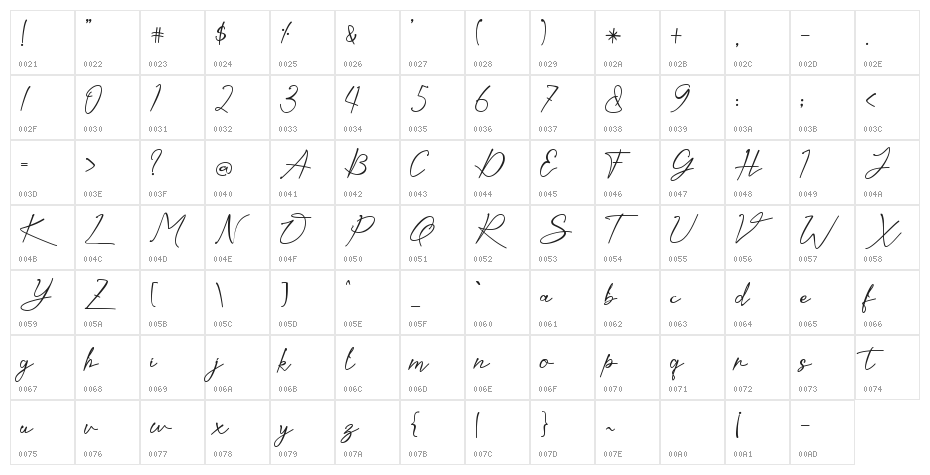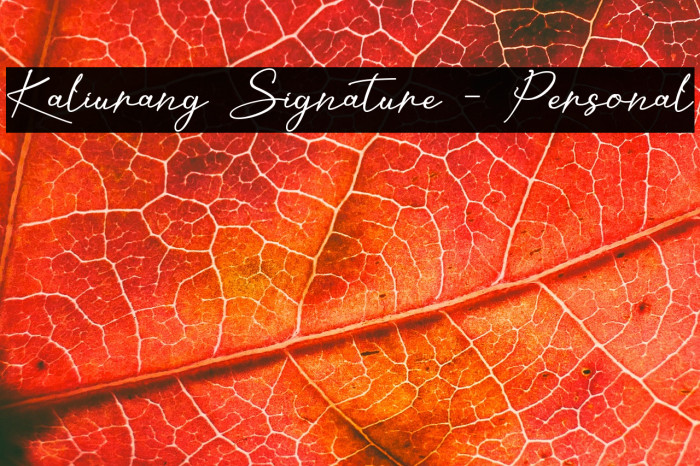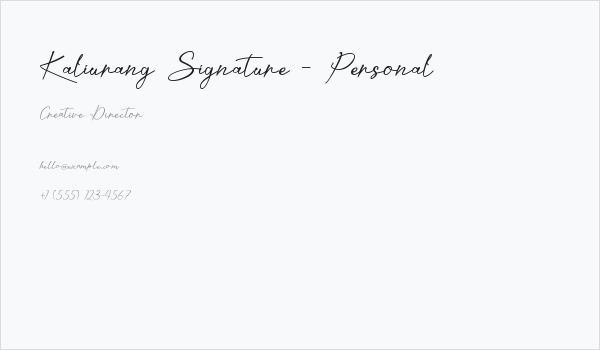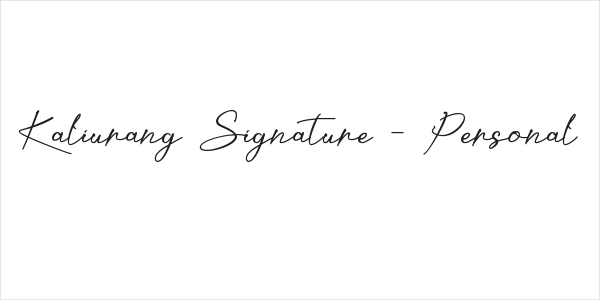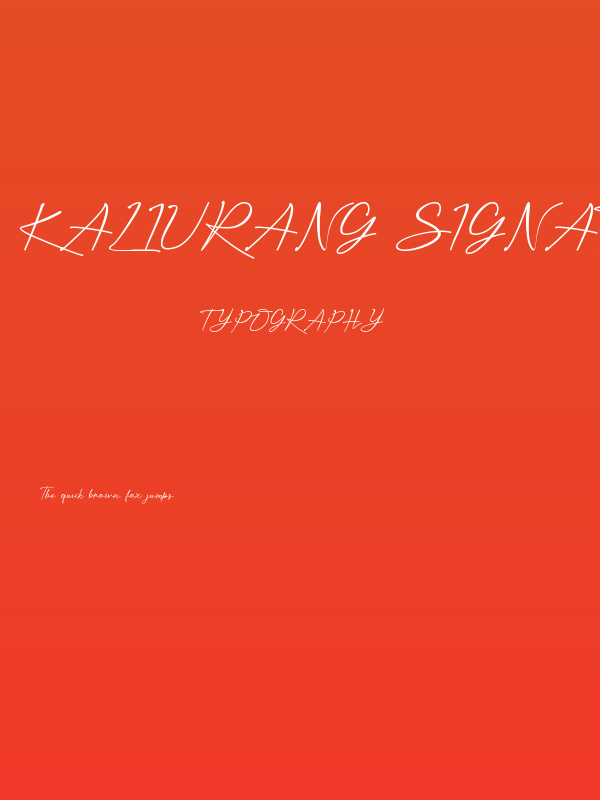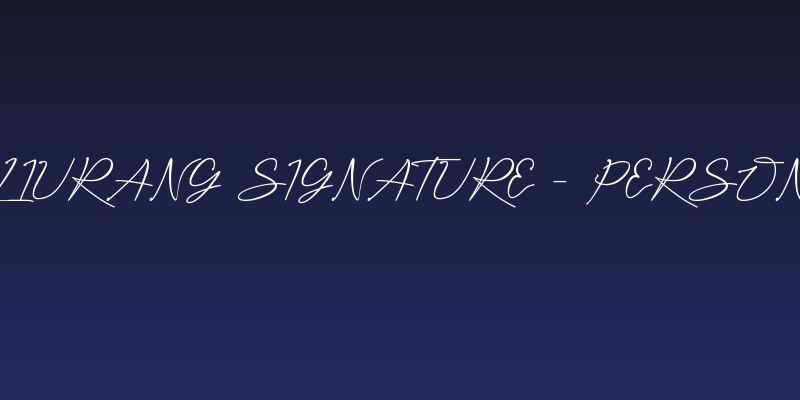
Kaliurang Signature - Personal Font
Kaliurang Signature - Personal Description
This elegant script font features a fluid and graceful style, reminiscent of handwritten signatures. The characters are connected with smooth, flowing strokes that give it a personal and artistic touch. The uppercase letters are slightly larger and more pronounced, while the lowercase letters maintain a consistent and harmonious flow. The numerals and special characters are designed to complement the overall aesthetic, making it suitable for a variety of creative applications. The font's delicate curves and loops add a sense of sophistication and charm, perfect for projects that require a personal or intimate feel.
| Overall Style | Elegant, Artistic |
| Proposed Projects | Ideal for wedding invitations, personal branding, greeting cards, and elegant logos. |